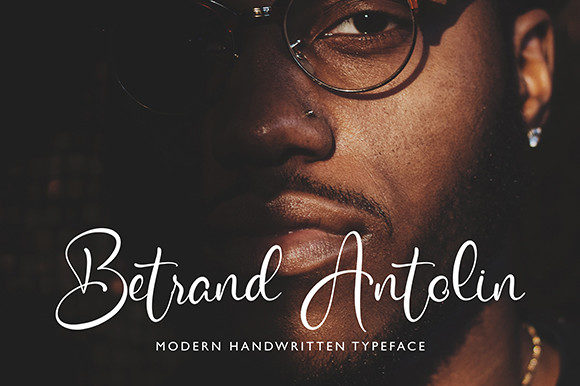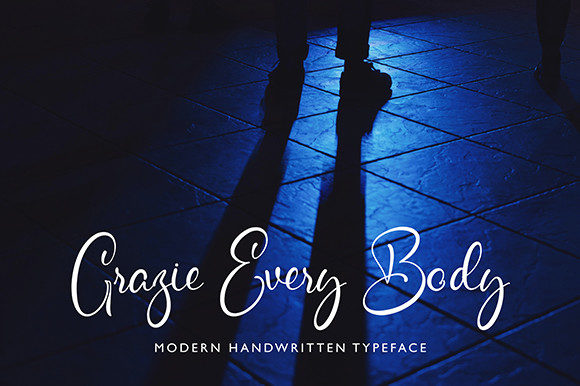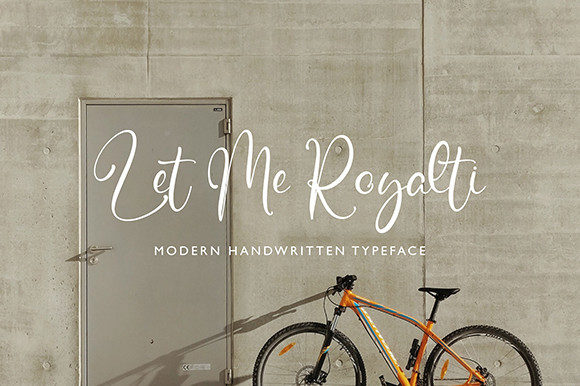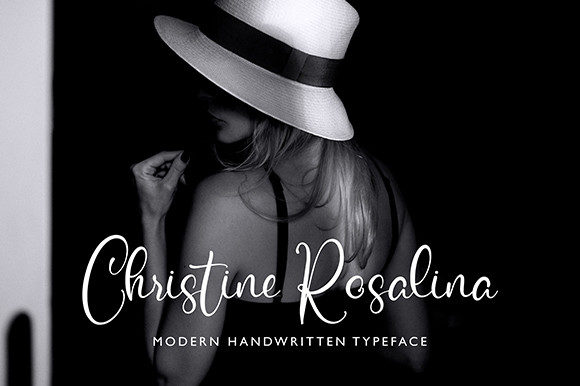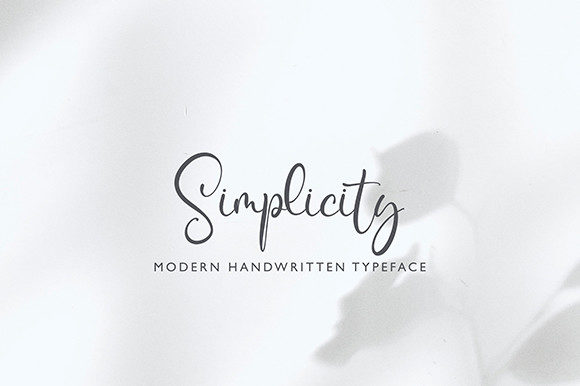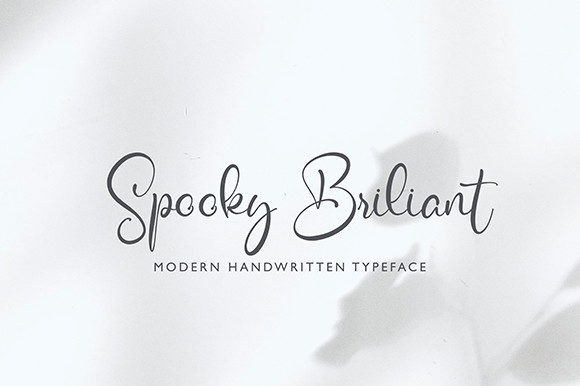
The Designer’s Delight: Gertak Hanter Font
I’ll never forget the moment I stumbled upon the Gertak Hanter font. I was working on a project for a client who wanted a elegant, yet modern look. I had spent hours scouring the internet for the perfect font, but nothing seemed quite right. That was until I saw Gertak Hanter – it was love at first sight! ✨
The exquisite handwritten font had a certain je ne sais quoi that immediately drew me in. Its classy calligraphic influences combined with a contemporary feel made it the perfect fit for my project. In this article, I’ll share my experience with Gertak Hanter, its features, and how to make the most of it in your designs.
- ✨ Elegant and sophisticated look
- 🎨 Versatile and suitable for a wide range of projects
- 💻 Great for both digital and print designs
While Gertak Hanter is an amazing font, there are a few things to keep in mind: 🤔
- ⚠️ Some characters may not work well in all contexts, especially when used in all caps
- ⚠️ Limited availability of certain OpenType features in certain software
The Story Behind Gertak Hanter
Gertak Hanter was designed by a talented type designer who wanted to create a font that would evoke the elegance of traditional calligraphy, while still feeling modern and fresh. The result is a font that is both refined and approachable, making it perfect for a wide range of design projects.
| Font Name | Gertak Hanter Font |
| Author | Pineungtype & Missinklab |
Q: What is Gertak Hanter font?
A: Gertak Hanter is a beautiful, handmade font that combines classic calligraphic influences with a modern feel.
Q: What can I use Gertak Hanter for?
A: Gertak Hanter is versatile and can be used for a wide range of projects, including branding, packaging, and digital designs.
Q: Is Gertak Hanter easy to read?
A: Yes, Gertak Hanter is highly legible, even at small sizes, making it perfect for body text and headings.